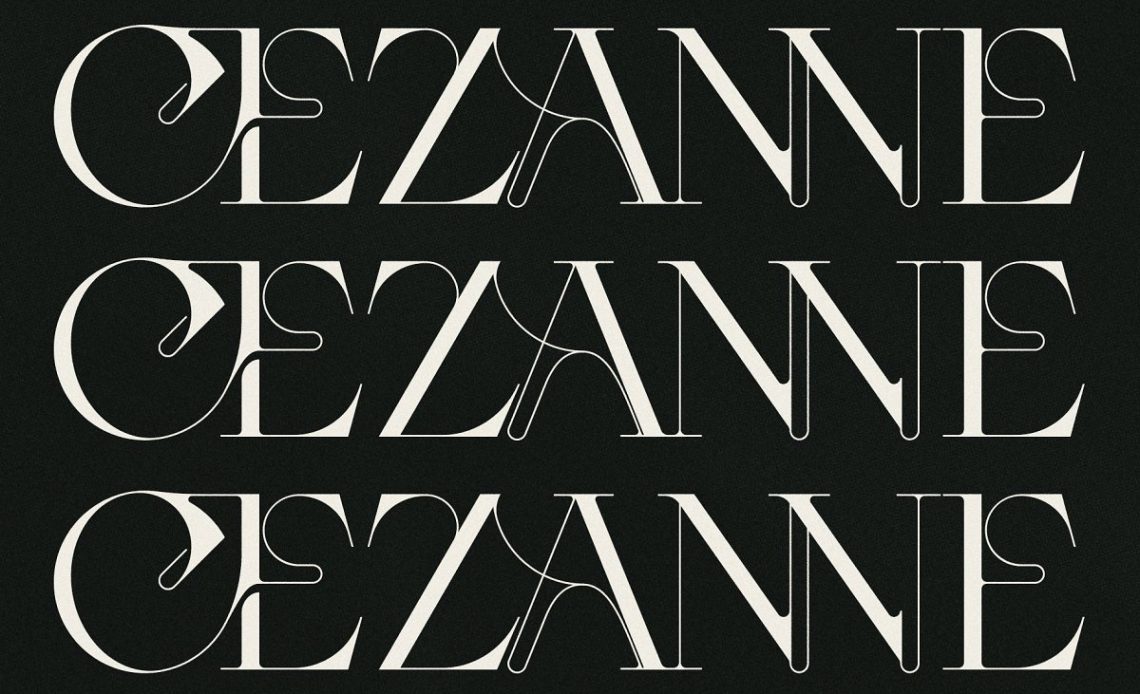
Introducing CEZANNE - the modern ligature serif font that will elevate your designs and captivate your audience. Created by Silver Stag, this font is the perfect choice for web advertising, logos, branding, posters, and social media projects.
With its unique and chic ligatures, CEZANNE offers a touch of modern art to your creations. The contrast lines and curves add a contemporary appeal that will make your design stand out from the crowd.
Not only does CEZANNE provide a stunning visual experience, but it also offers full language support, including punctuation and numerals. Plus, detailed instructions are included to help you effortlessly use alternate letters in various applications, such as Canva and most apps on your computer.